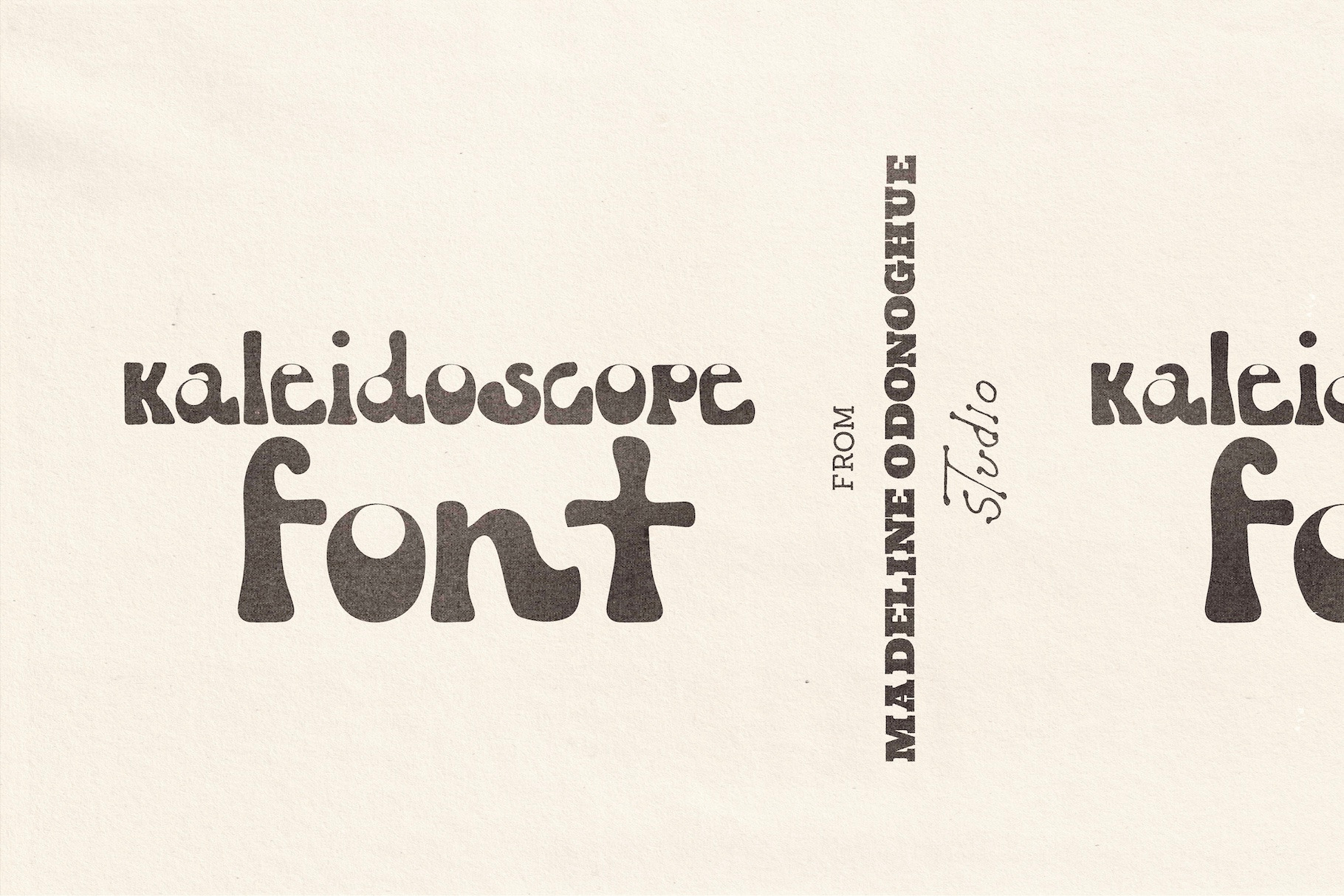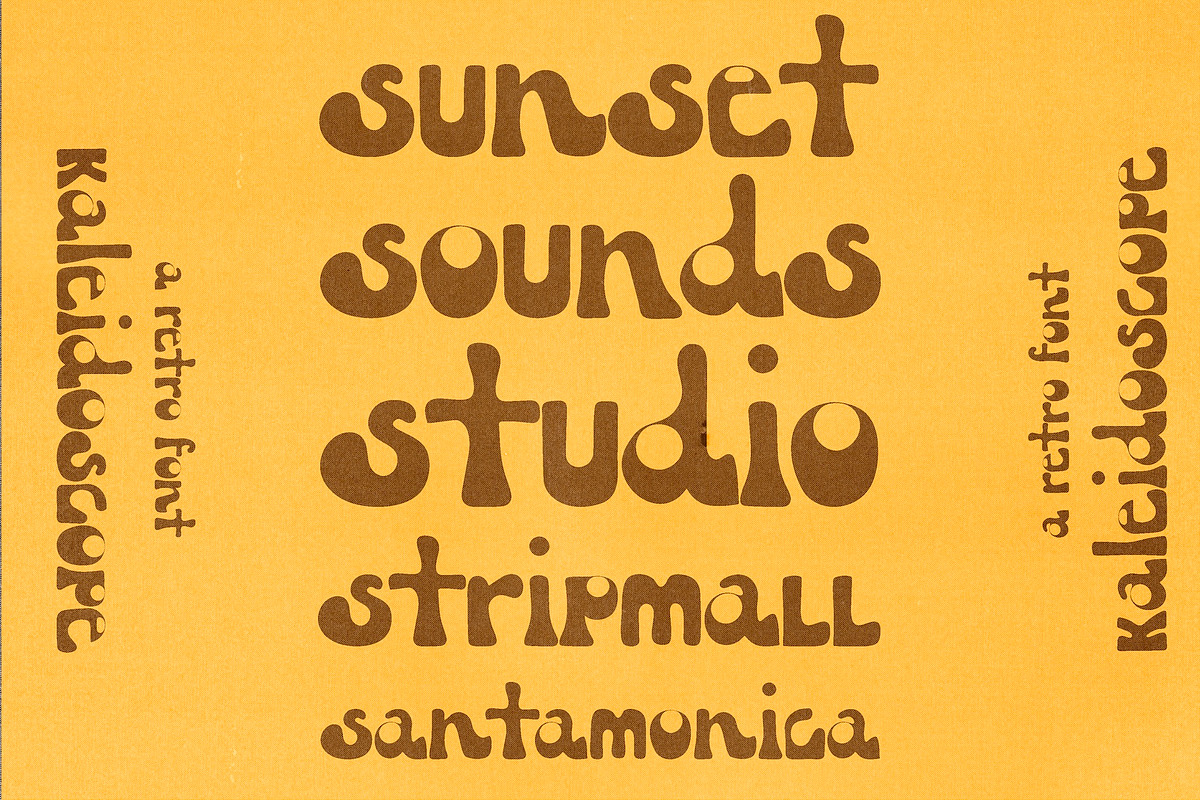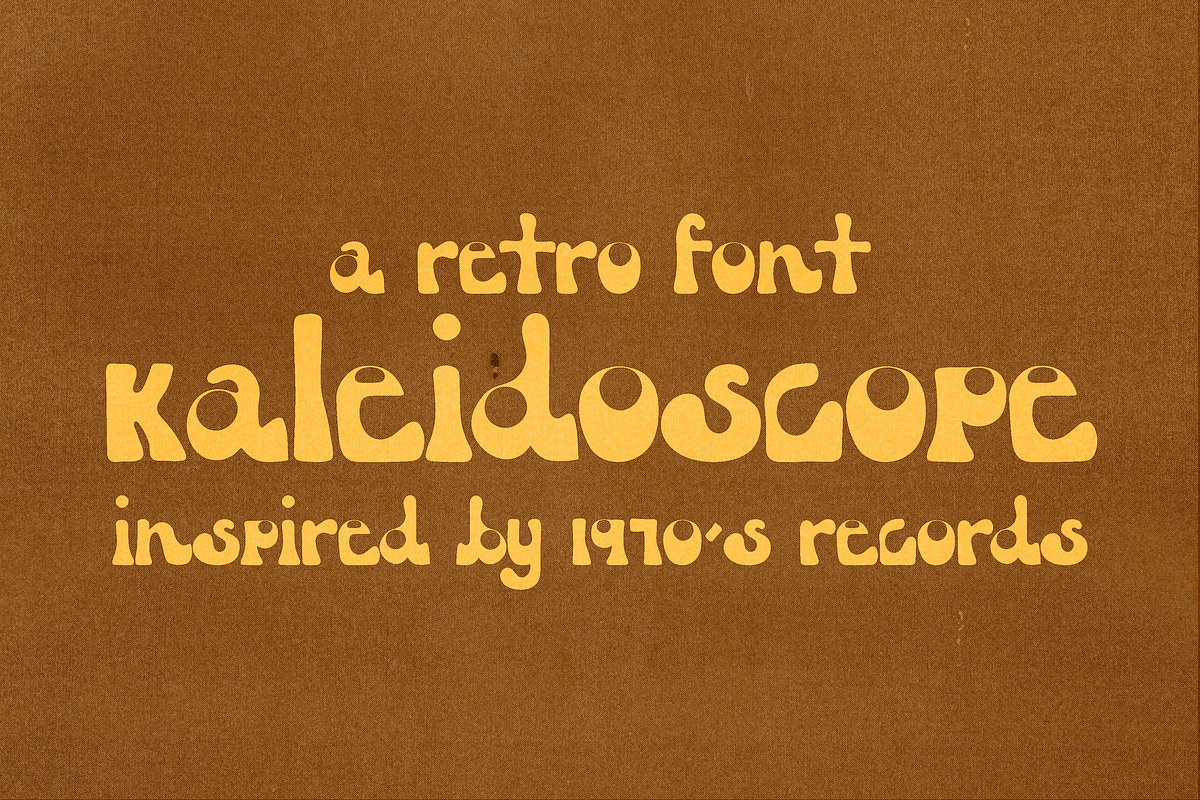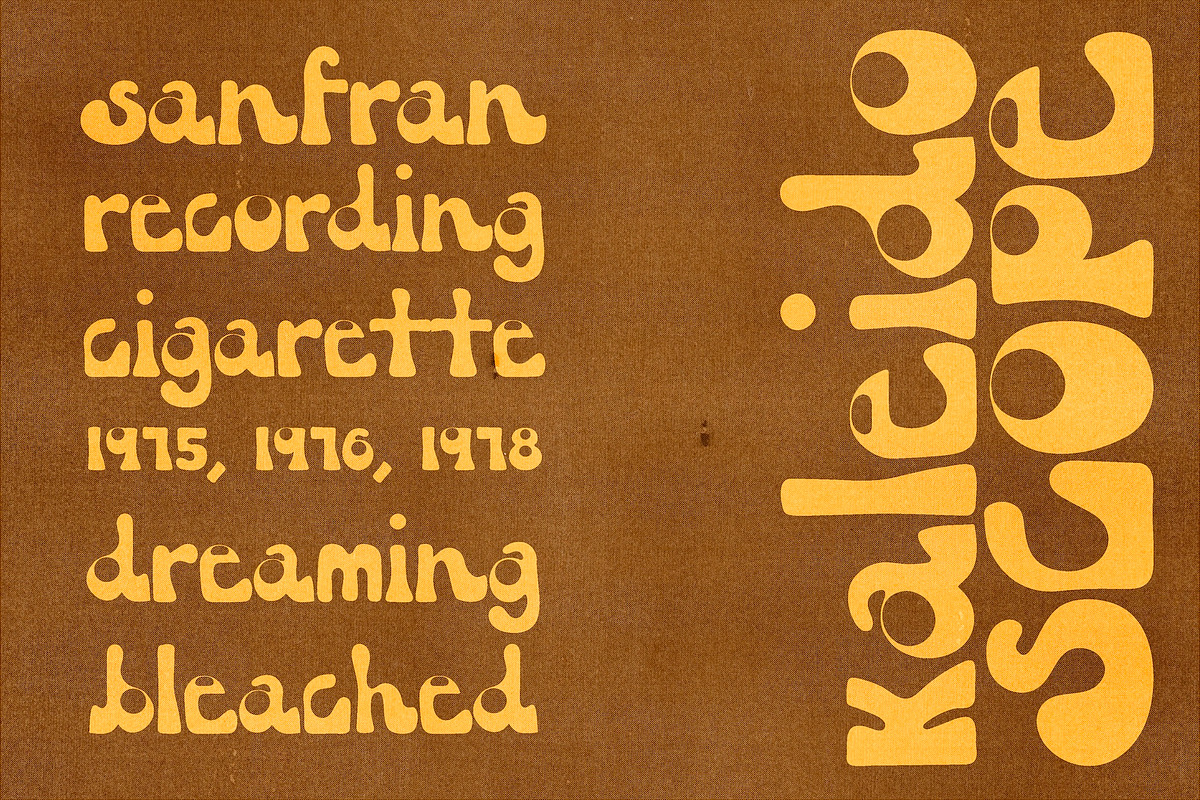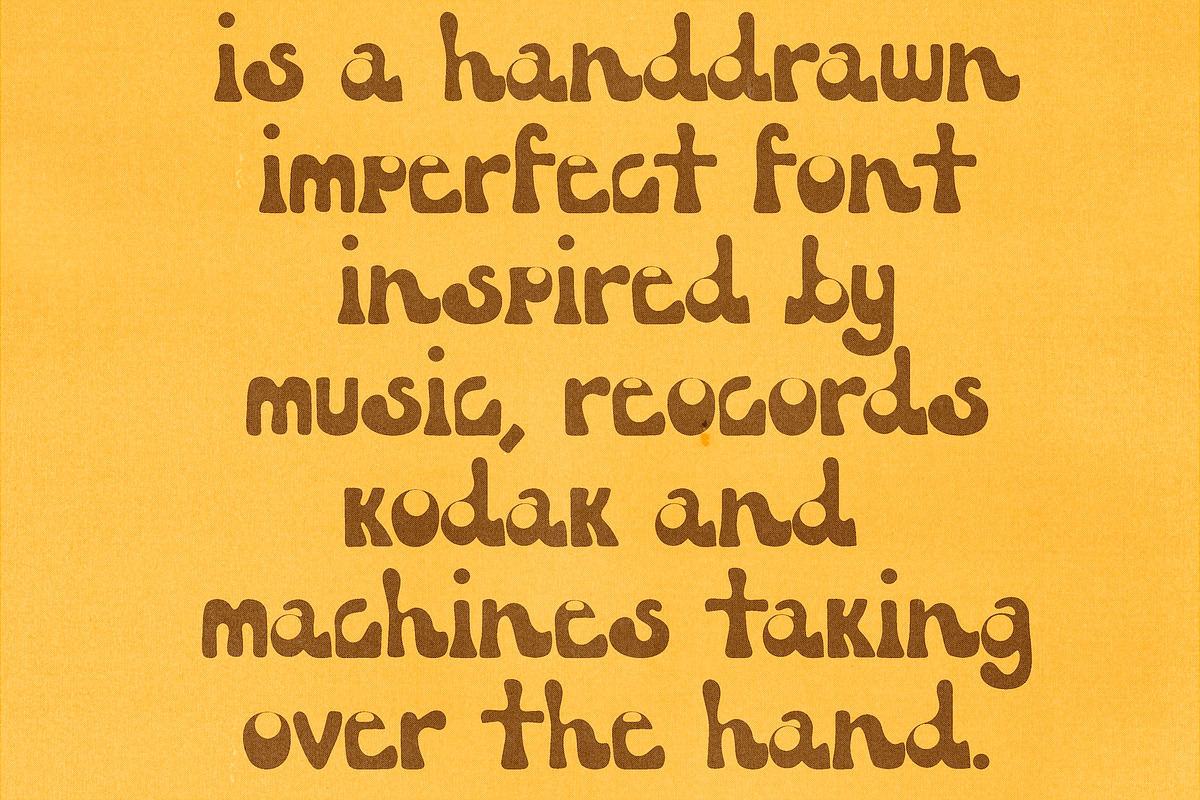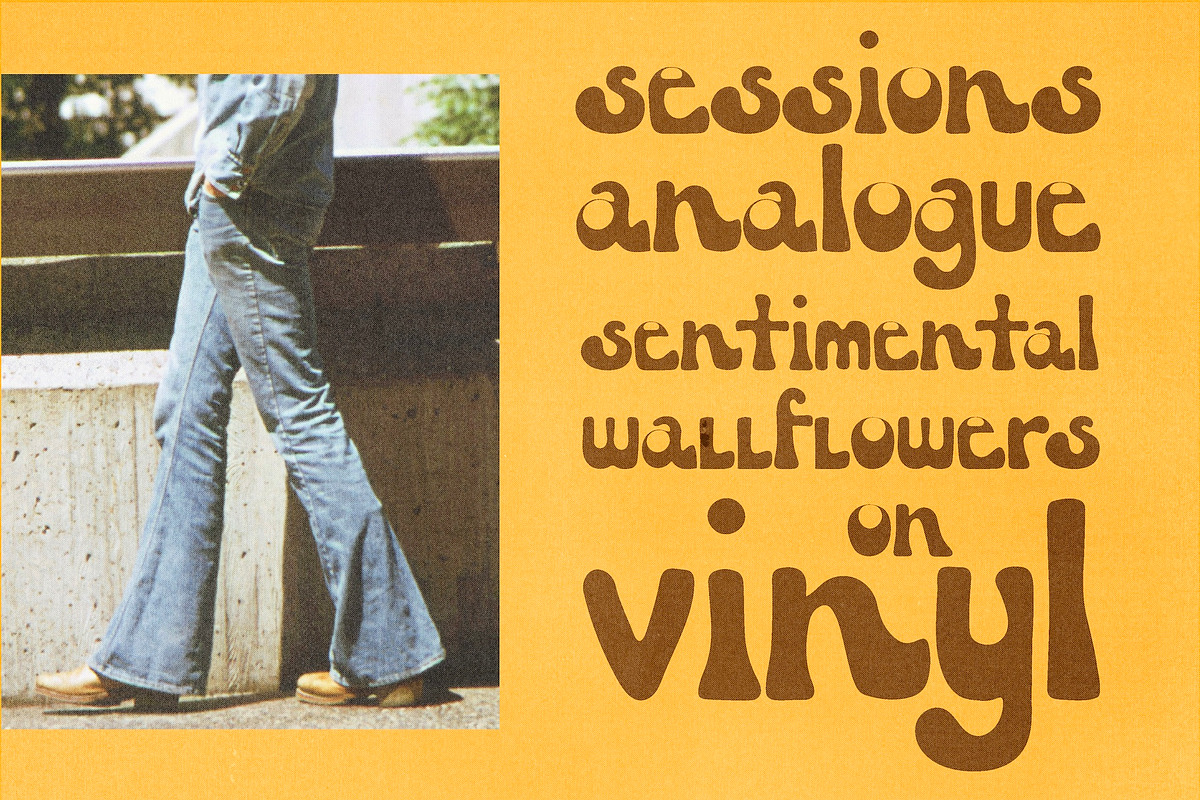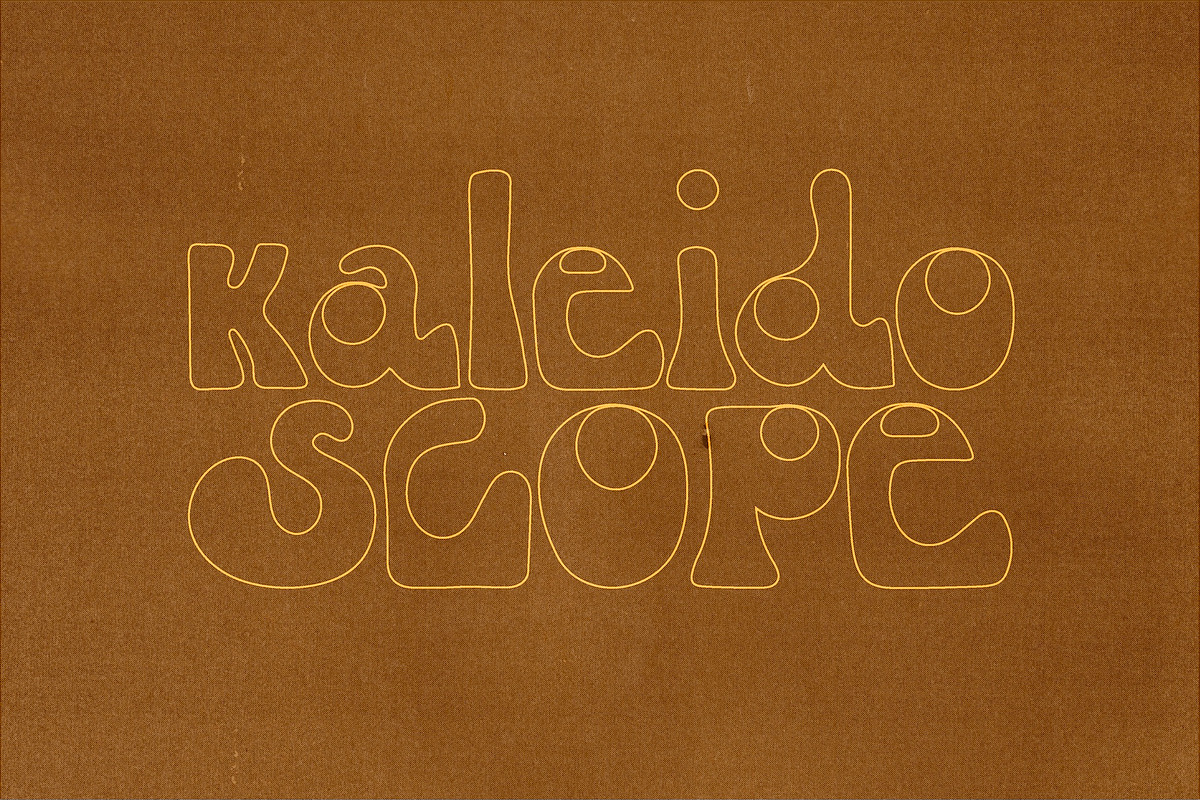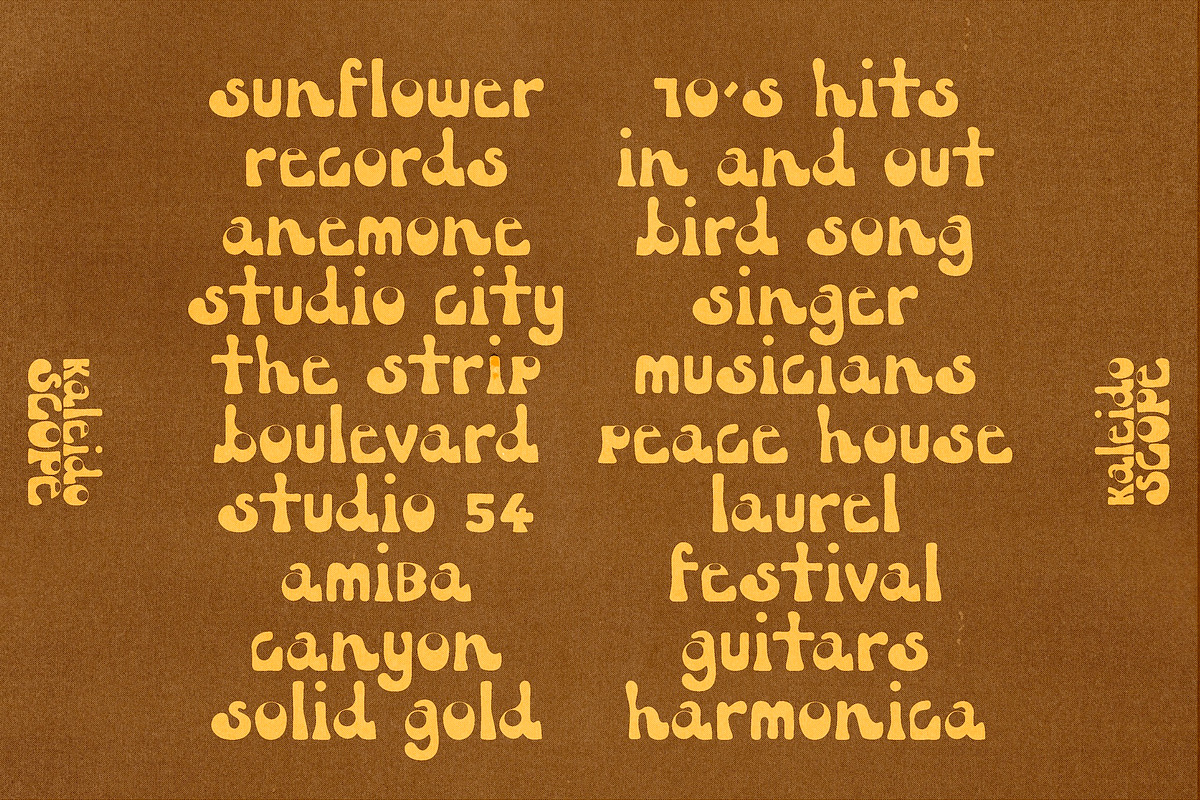
Kaleidoscope - Hand Drawn Retro Font
Kaleidoscope is a bold, hand-drawn display font born straight out of the golden haze of 1970s Los Angeles. Think Sunset Strip neon, Capitol Records studios, record sleeves on shag carpets, and the sound of summer echoing through a dusty AM radio.
This all-caps typeface brings rhythm, groove, and grit to your designs — perfect for vintage album covers, merch, retro posters, surf shop signage, or anything that calls for a blast of analog soul.
With its imperfect hand-sketched lines and nostalgic warmth, Kaleidoscope channels the energy of billboard hits, bell bottoms, and backroom jam sessions.
Ideal for:
Vintage branding
Music artwork
Throwback flyers
Record labels
Zines
Any project that needs a hit of 70s LA magic